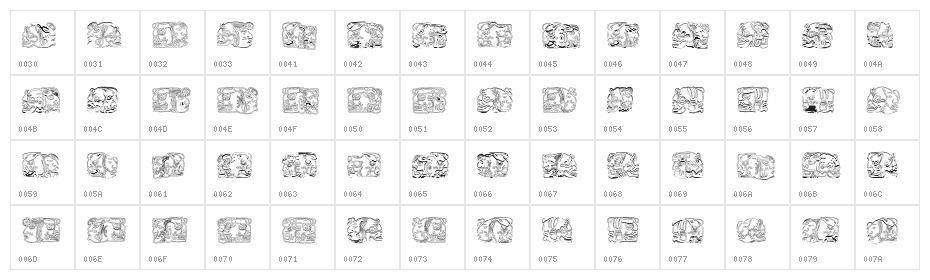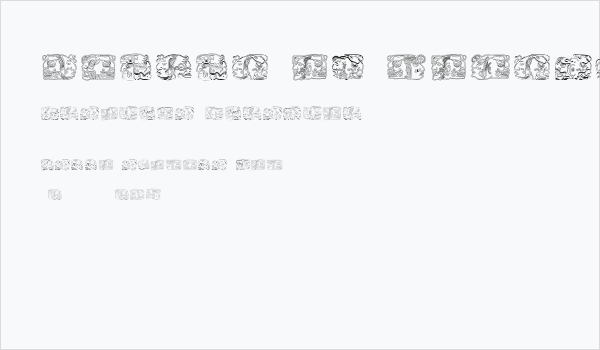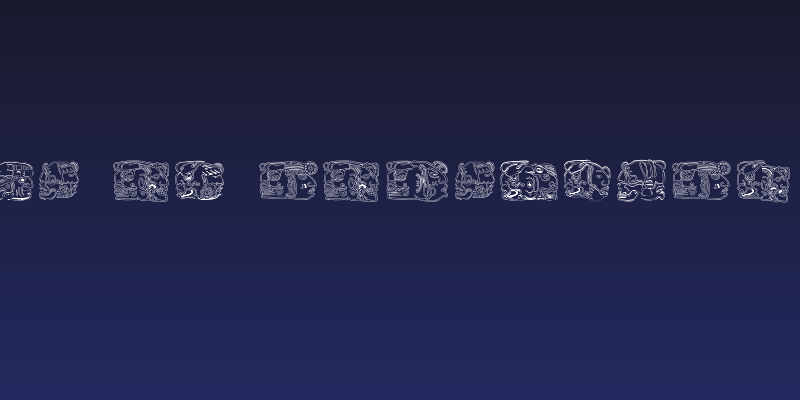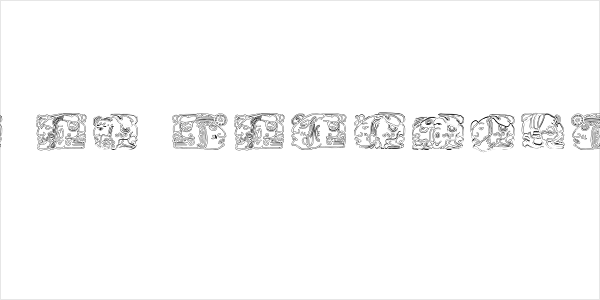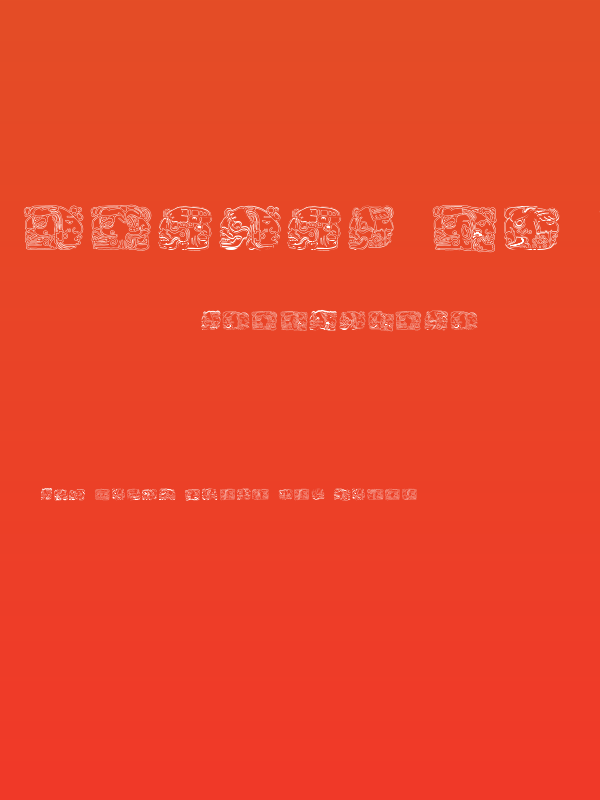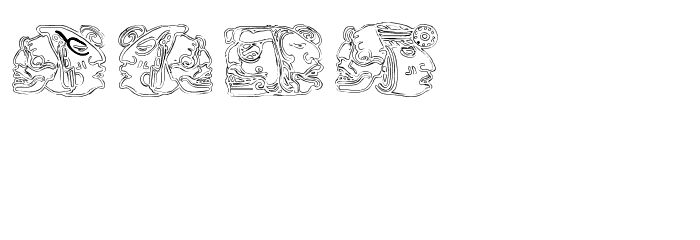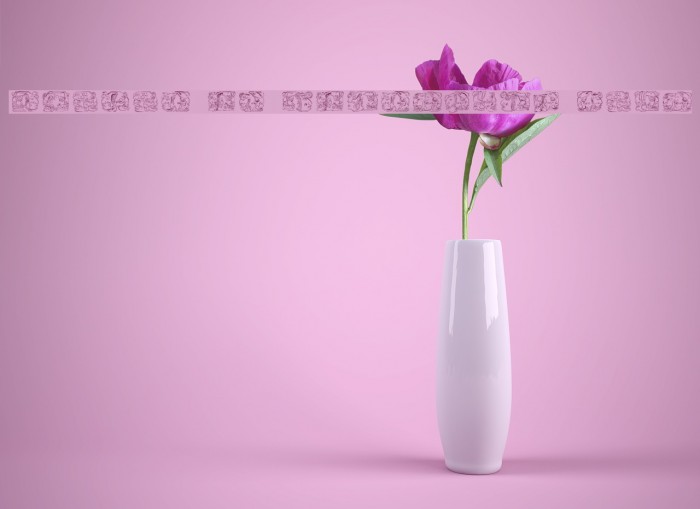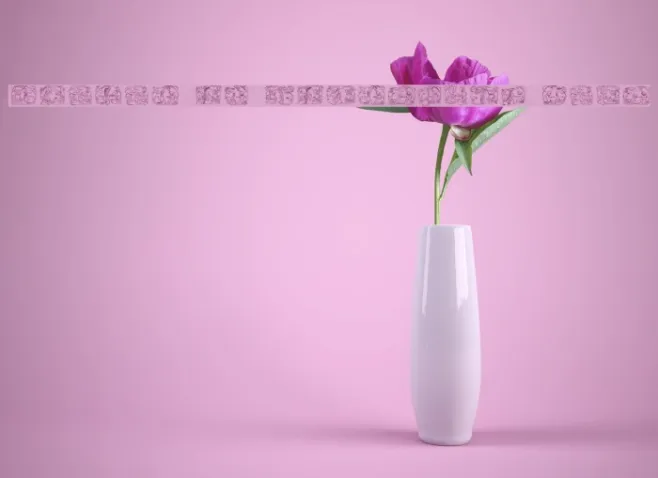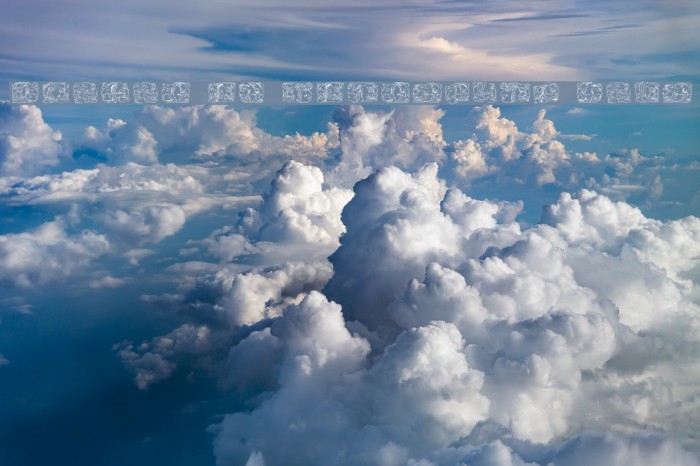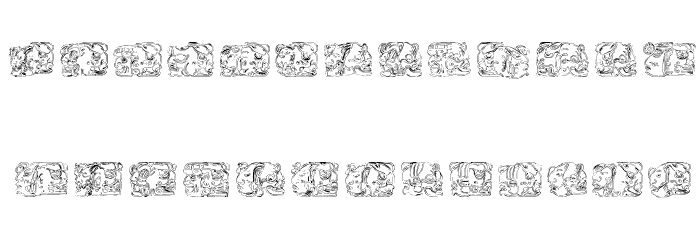
Spirit of Montezuma Five Font
Spirit of Montezuma Five Description
This font is a highly decorative and intricate design inspired by ancient Mesoamerican art and glyphs. Each character is uniquely crafted with elaborate details, resembling traditional carvings and symbols. The font captures a sense of history and cultural richness, making it visually striking and distinctive. The characters are enclosed in rectangular shapes, adding a uniformity to the overall design while maintaining the complexity of each individual glyph. The style is reminiscent of ancient scripts, with a modern twist that makes it suitable for artistic and thematic projects.
| Use Case | Logos, Posters, Artistic Projects |
| Proposed Projects | Ideal for cultural exhibitions, historical themed events, artistic posters, and decorative projects that require a unique and culturally rich aesthetic. |